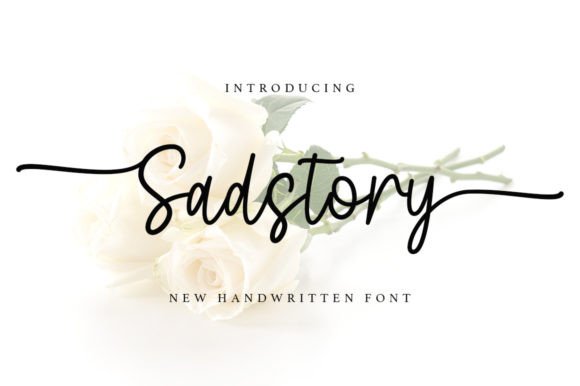
Introducing Sadstory, the dazzling script font that will add a touch of elegance to your wedding invitations, greeting cards, and any other project that calls for a touch of sophistication. This meticulously crafted font features intricate details and smooth curves, giving your words a polished and unforgettable look.
Sadstory is more than just a font; it's a work of art that will transform your creations into masterpieces. Its PUA encoding ensures effortless access to a world of glyphs and swashes, empowering you to unleash your creativity and express yourself in a way that's uniquely yours.
Imagine your wedding invitations adorned with Sadstory's graceful strokes, setting the perfect tone for your special day. The intricate details will capture the hearts of your guests, leaving a lasting impression that reflects the love and joy you share.
With Sadstory, you'll have the power to create greeting cards that convey your heartfelt messages with a touch of timeless beauty. Its elegant curves will cradle your words, adding a layer of warmth and sentiment that will make your loved ones feel cherished.
Whether you're crafting social media posts, branding materials, or simply expressing your creativity, Sadstory is the perfect choice for adding a touch of sophistication and charm. Its versatility knows no bounds, making it an essential addition to any font library.